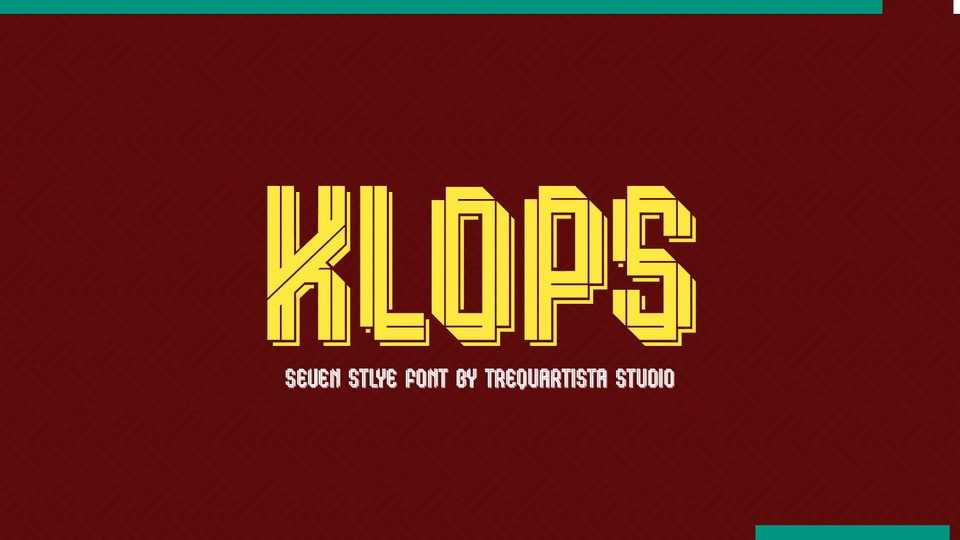
Download Klops font, a condensed sport typeface. It has 7 styles. This typeface has a clean and athletic look, glyphs and extensive Latin script support.
Designer: Trequartista Studio